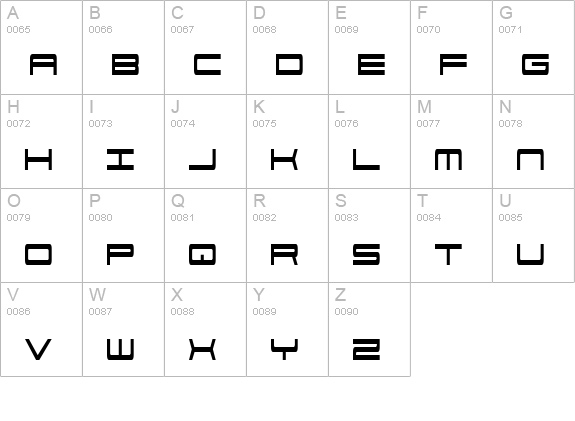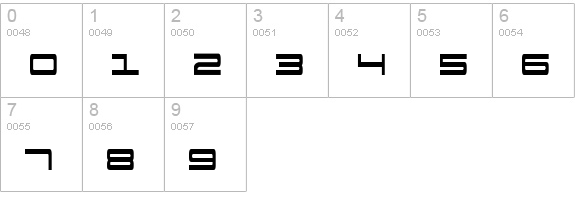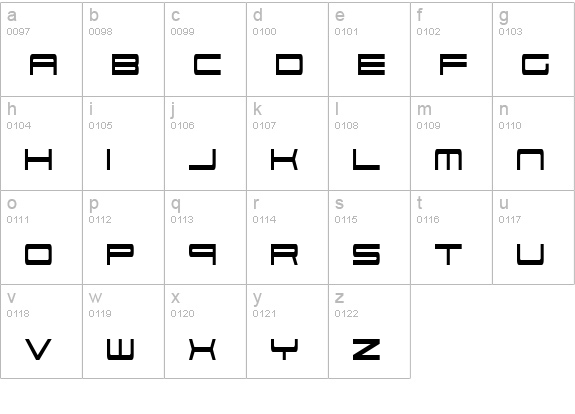
911 Porscha Condensed Font Details
911 Porscha Condensed is a distinctive, condensed-width variant in the 911 typeface family \xE2\x80\x94 well suited to design and typography projects.
911 Porscha Condensed is a sleek and modern font that exudes elegance and sophistication. With its clean lines and sharp edges, this font is perfect for adding a touch of luxury to any design project. Whether you're creating a logo, branding materials, or a stylish invitation, 911 Porscha Condensed will make your text stand out with its unique style. The best part? This exquisite font is available for free download at FontsMarket.com. Don't miss out on the opportunity to elevate your designs with the timeless beauty of 911 Porscha Condensed. Download it today and let your creativity soar!